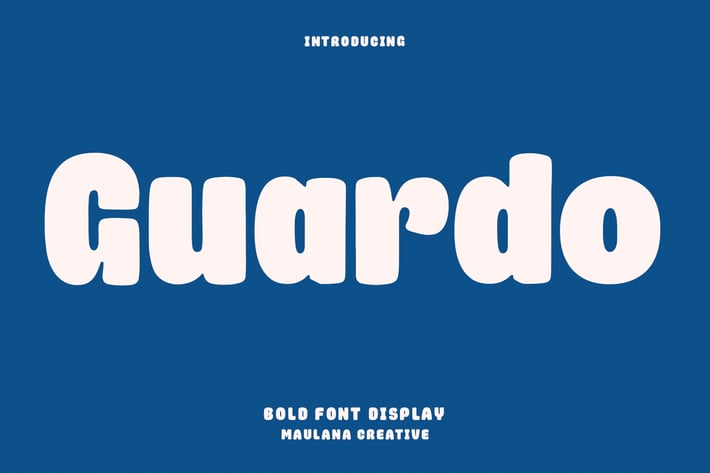
Guardo Display Font
Guardo is a sans serif based font. With bold bulk rounded stroke, fun character with a bit of ligatures and alternates. To give you an extra creative work. Guardo font support multilingual more than 100+ language. This font is good for logo design, Social media, Movie Titles, Books Titles, a short text even a long text letter and good for your secondary text font with sans or serif. Make a stunning work with Guardo font.